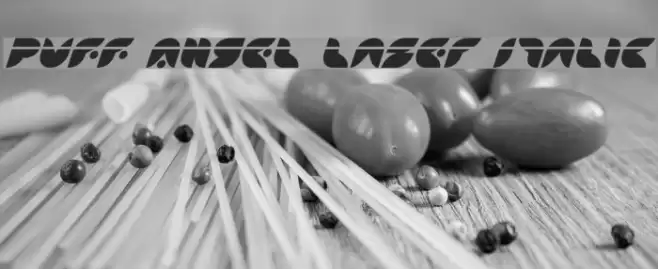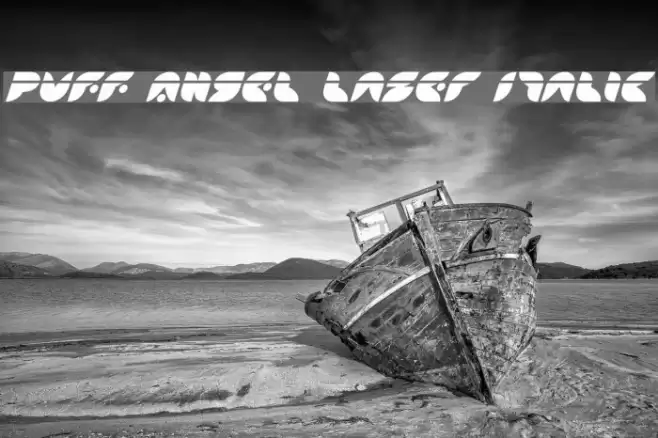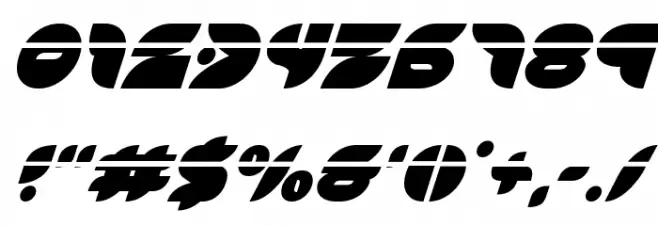
Puff Angel Laser Italic Font
Puff Angel Laser Italic Description
This font features a bold, futuristic design with a distinct laser-cut appearance. The characters are heavily stylized with sharp angles and geometric shapes, creating a sense of movement and energy. The uppercase and lowercase letters maintain a consistent style, with the lowercase slightly smaller but equally bold. Numbers and special characters follow the same design principles, ensuring uniformity across all glyphs. The font's unique aesthetic makes it stand out, ideal for projects that require a modern and edgy look.
A bold, futuristic font with a laser-cut, geometric design from Uncategorized fonts.
- Proposed Projects: Ideal for sci-fi themed projects, technology branding, video game titles, and futuristic posters.